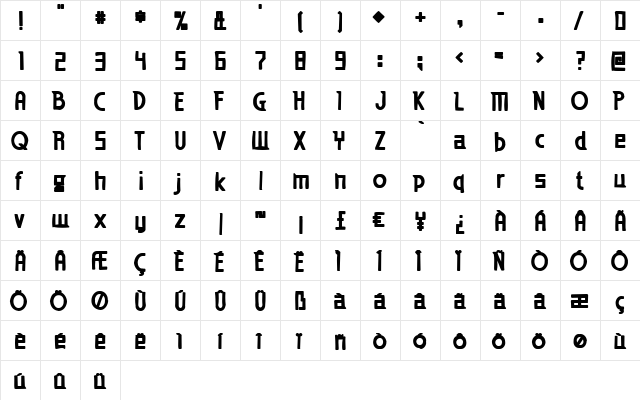
Eden Mills Ink Regular
| Designer | Ray Larabie / Larabie Fonts |
Design Context for Eden Mills Ink Typeface
Eden Mills Ink takes a measured approach to typography — its balanced proportions and neutral character make it a reliable workhorse for both digital and print work.